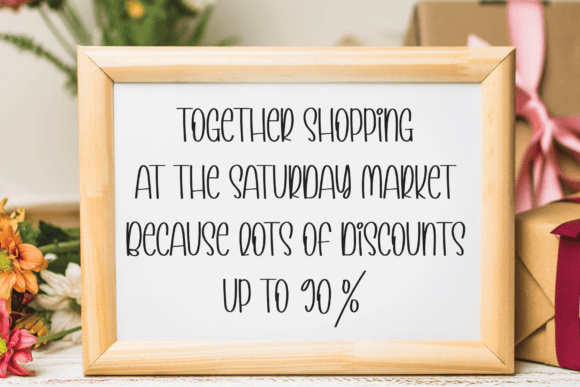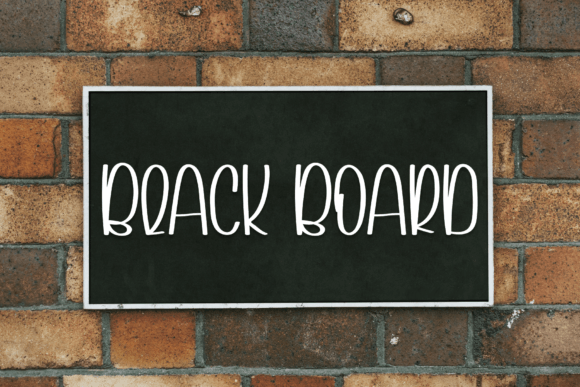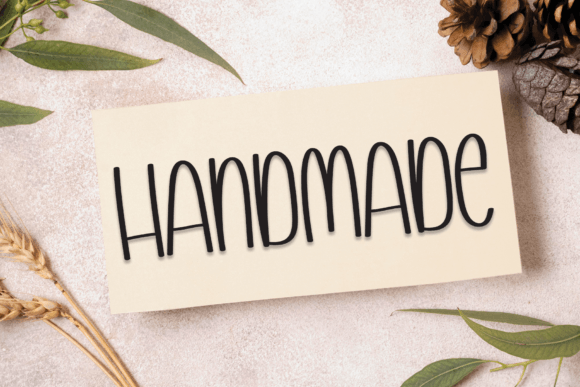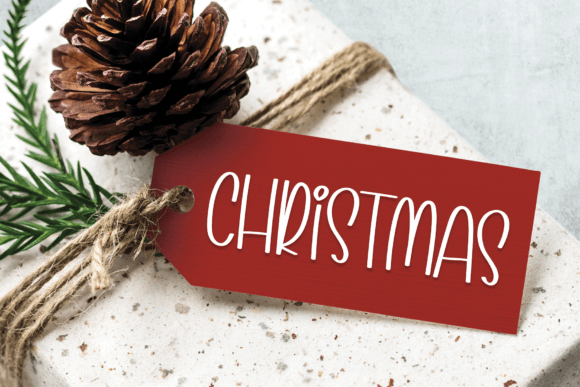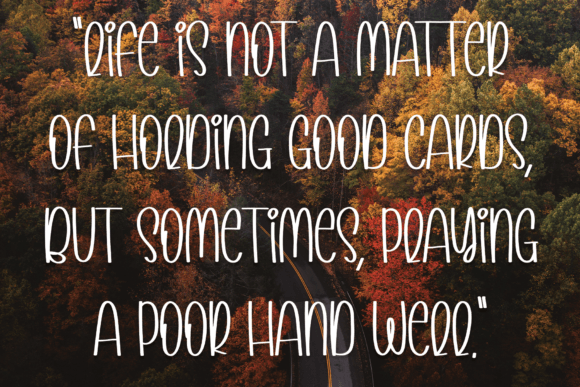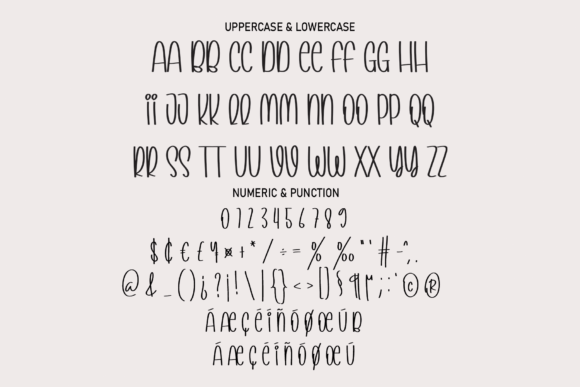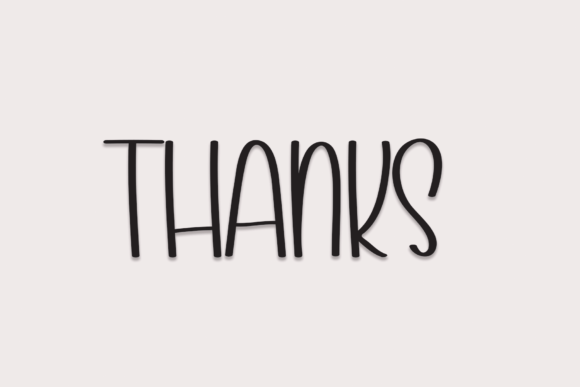
Planner Story Font
Bring elegance and charm to your projects with the Planner Story font. This font features the latest handwritten style letters, ideal for a wide range of design needs. Whether you’re working on wedding invitations or social media logos, this font adds a personalized and stylish touch.
The Planner Story font is also great for advertisements, product packaging, and product designs. It works beautifully on labels, photography, watermarks, invitations, and stationery. Its handwritten character adds warmth and uniqueness to every design.
Each letter is crafted with smooth and flowing strokes. This gives your projects a handcrafted and authentic feel. The font combines artistic flair with clear readability. It suits headlines, logos, quotes, and decorative text perfectly.
This font balances style and clarity. It remains readable at all sizes. Whether you want bold titles or subtle text, the Planner Story font adapts to your design needs.
Using this font will help your creative work stand out. It adds a fresh and elegant spirit. If you want your designs to look professional and unique, the Planner Storyfont is an excellent choice.
In summary, the Planner Storyfont suits many applications. From wedding invitations to product packaging, it adds sophistication and personality. Download it today and create memorable designs with a handcrafted style.